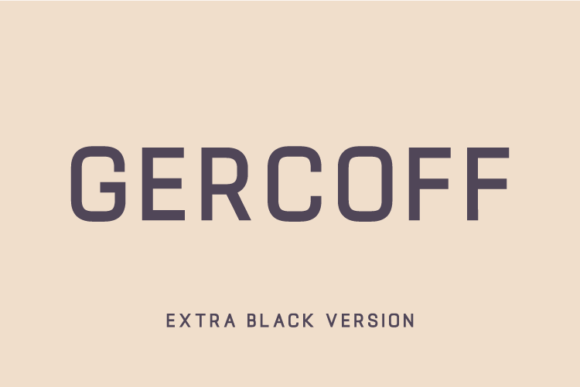
Dive into the world of timeless elegance with Gercoff Extra Black Font, a sans serif masterpiece that exudes sophistication and charm. Crafted with meticulous precision by the talented A Christie, Gercoff captivates with its clean lines, smooth edges, and a touch of vintage allure. Step into a world of classic beauty and make a lasting impression with every design.
Unleash your creativity and let Gercoff Extra Black Font work its magic. Its effortless versatility makes it the perfect choice for a wide range of projects, from vintage logo designs and eye-catching headers to small, elegant text passages. Whether you're a seasoned designer or just starting your creative journey, Gercoff Extra Black Font is your trusted companion, guiding you towards stunning visual masterpieces.
Experience the beauty of simplicity with Gercoff Extra Black Font. Its clean lines and unadorned elegance create a visual harmony that complements any design aesthetic. From classic wedding invitations and timeless branding materials to captivating social media posts and website designs, Gercoff Extra Black Font elevates your creations with an air of timeless sophistication.
With Gercoff Extra Black Font, you're not just downloading a font; you're embracing an artistic legacy. Immerse yourself in the world of A Christie, a master of typography, and let Gercoff Extra Black Font become your creative muse. Discover the endless possibilities that await you as you explore the depths of this remarkable font.